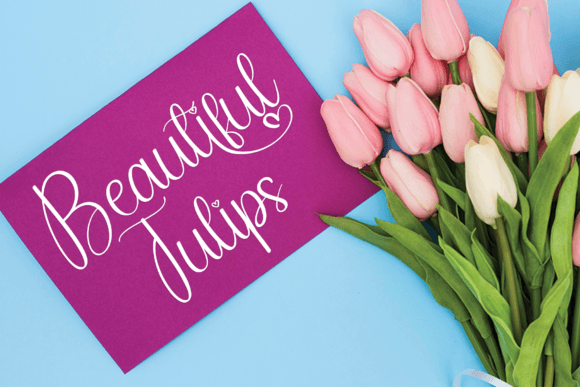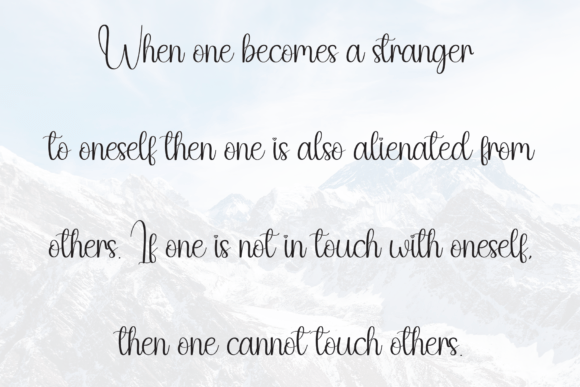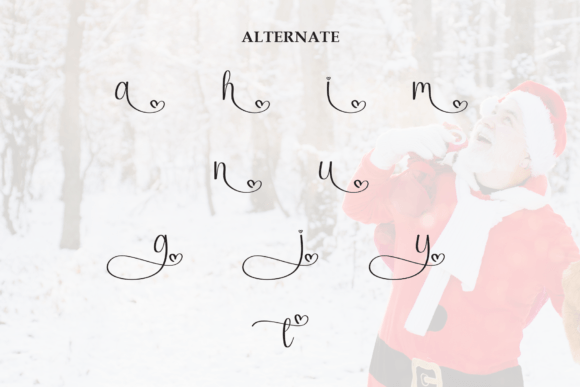
Introduction to Santa Courage Font
As a designer, there’s nothing quite like the thrill of a new creative project. The blank page stares back at you, waiting for your imagination to come alive. For some, it’s the perfect moment to break out the trusty fonts and get creative. And that’s exactly what I did when I stumbled upon the Santa Courage Font. This sweet and friendly handwritten display font is the perfect addition to any design.
With its cute and fun design, the Santa Courage Font is ideal for writing wedding invitations, cards, or any other design that needs a fun touch. But what really sets it apart is its versatility – perfect for designers looking to add a unique flair to their projects. And the best part? It’s available for free download, making it a valuable resource for any design project.
Whether you’re working on a high-quality design for a client or a personal creative project, the Santa Courage Font is sure to bring a smile to your face and a touch of whimsy to your design.
Key Features of Santa Courage Font
- Unique, high-quality design for creative projects and holiday-themed artwork, with a bold and festive feel.
- Comes with a transparent background, allowing for easy customization and integration with various design elements.
- High-resolution design, suitable for printing and use in high-quality creative projects.
- Features a bold, cursive script style, perfect for adding a touch of holiday cheer to any design project.
- Perfect for use in various creative projects, including greeting cards, posters, and digital artwork.
Honest Review: Santa Courage Font
As a designer, I’ve come across many fonts in my search for the perfect design resource. The Santa Courage Font is a unique find, and I’m excited to share my honest review.
- The font has a bold and festive feel, perfect for creative projects that need a touch of holiday cheer.
- The high-quality design ensures that the font looks great on any background, including transparent backgrounds.
- The font may not be suitable for professional or formal designs, as it’s a bit too playful and casual.
- The character set is limited, so you may not find all the characters you need for your project.
Overall, the Santa Courage Font is a fun and creative design resource that’s perfect for holiday-themed projects or personal designs. While it may have some limitations, it’s a great option for designers looking for a high-quality font that’s easy to download and use.
Santa Courage Font
The Santa Courage Font is a free design resource perfect for adding a touch of festive cheer to your creative projects. With its transparent background and high-quality design, you can easily integrate it into your favorite design tools.
To get the most out of the Santa Courage Font, try combining it with other festive design elements, such as holly, snowflakes, and reindeer. You can also experiment with different font sizes and colors to create a unique look.
The Santa Courage Font is perfect for a variety of creative projects, including:
- Holiday cards and invitations
- Christmas-themed social media posts
- Festive blog headers and titles
- Custom gift tags and labels
Yes, the Santa Courage Font has a transparent background, making it perfect for use in designs with complex backgrounds or layering. You can easily adjust the font’s opacity to match your design needs.
Q: Is the Santa Courage Font suitable for high-quality creative projects?
Yes, the Santa Courage Font is designed to be a high-quality design resource. Its unique blend of elegance and playfulness makes it perfect for a wide range of creative projects, from branding and advertising to editorial and entertainment.